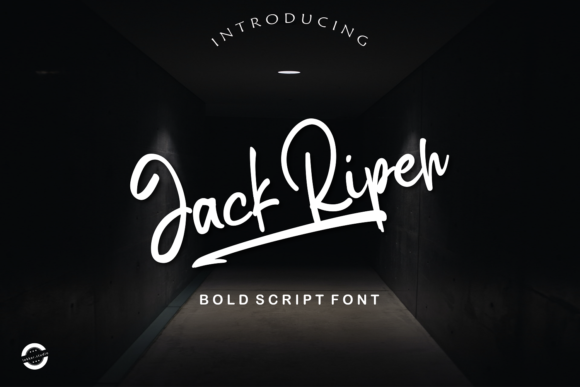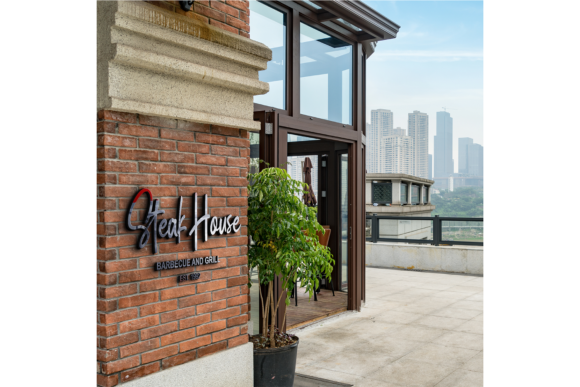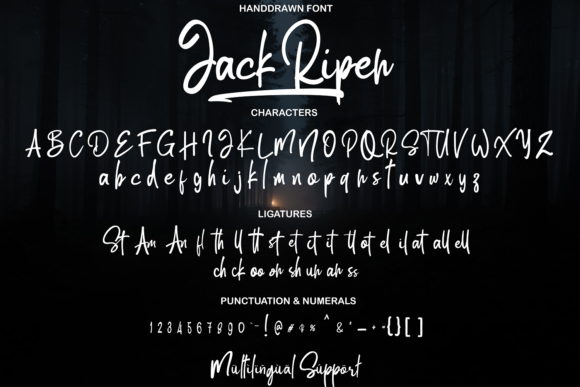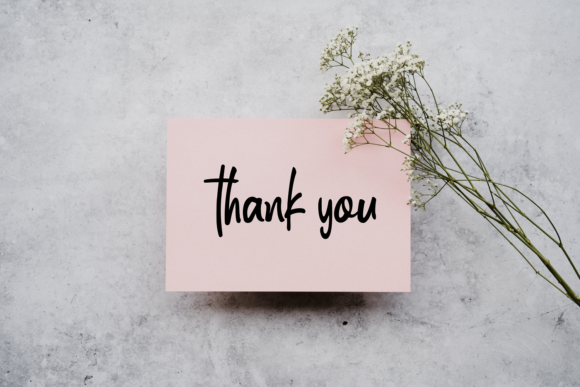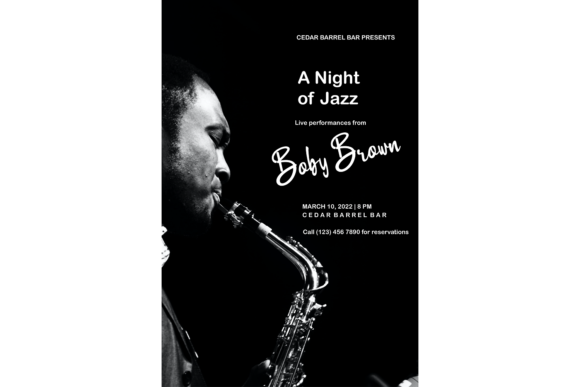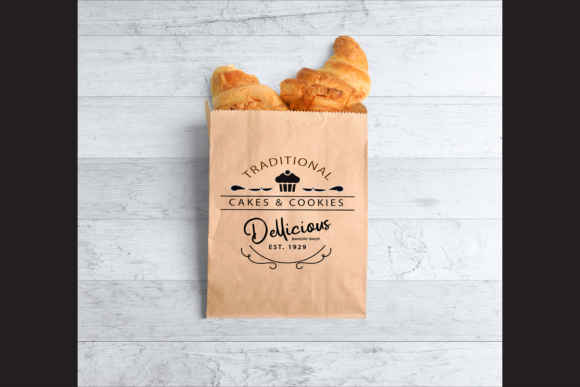
Jack Riper Font
About Jack Riper Font
Jack Riper is a font that effortlessly combines a cool and relaxed handwritten style with a touch of uniqueness and charm. This versatile typeface can be seamlessly integrated into a plethora of design projects, making it an ideal choice for a wide array of creative applications.
One of the standout features of Jack Riper is its adaptability for branding projects. Whether you’re developing a new brand identity or giving a fresh look to an existing one, this font brings a distinct personality that captures attention. Its handwritten aesthetic adds an element of authenticity and approachability, making it suitable for businesses aiming to connect with their audience on a personal level.
When it comes to logo design, Jack Riper shines by adding a hint of informality while retaining a sense of professionalism. It can infuse your logo with a relaxed and contemporary vibe, making it memorable and recognizable. The font’s fluid strokes and casual appearance lend themselves well to conveying the personality and values of your brand.
Jack Riper is also an excellent choice for crafting elegant and captivating wedding invitations. Its relaxed yet stylish look can set the tone for a memorable event, adding a touch of sophistication to the design. The font’s versatility allows you to experiment with different layouts, color schemes, and embellishments to create invitations that truly reflect the essence of the occasion.
In the realm of social media, Jack Riper helps you create eye-catching and engaging posts that resonate with your followers. Its distinctive handwriting evokes authenticity and genuineness, making it perfect for sharing relatable content, inspirational quotes, or even showcasing products in a relatable and approachable manner.
When used in advertisements, Jack Riper can help your brand stand out from the competition. Its unique and relaxed style draws the viewer’s attention and can communicate the message in a more personal and relatable way. Whether it’s for print or digital ads, the font’s versatility ensures that your marketing materials leave a lasting impression.
Product designs and labels also benefit from Jack Riper’s charming appeal. Whether you’re designing packaging for a new product or creating labels for handcrafted items, the font’s handwritten quality adds a touch of craftsmanship and individuality. It can evoke a sense of authenticity that resonates with consumers who appreciate attention to detail.
In essence, Jack Riper is not just a font; it’s a versatile tool that empowers you to bring a customized and distinct touch to your creative projects. Its cool and relaxed vibe, combined with its unique handwriting style, makes it a valuable asset for designers, entrepreneurs, and creatives seeking to make their work truly stand out in a crowded visual landscape.